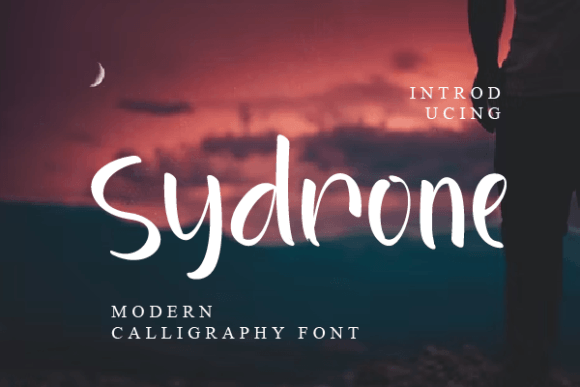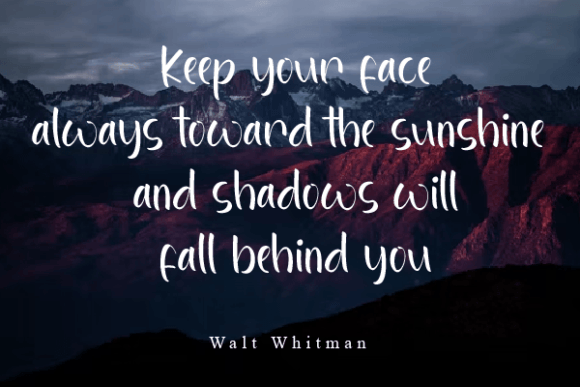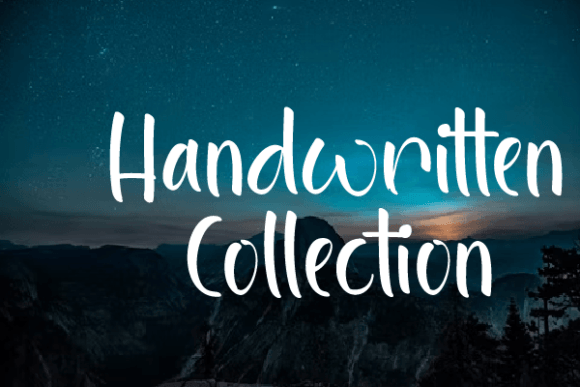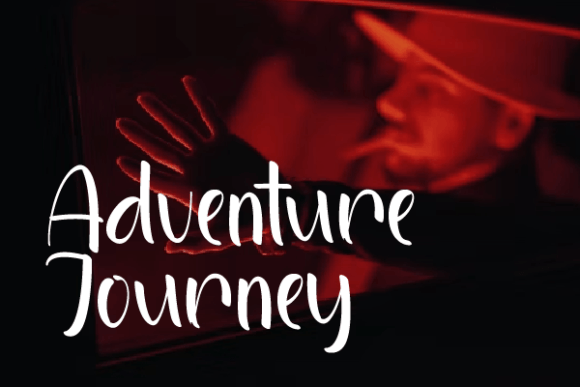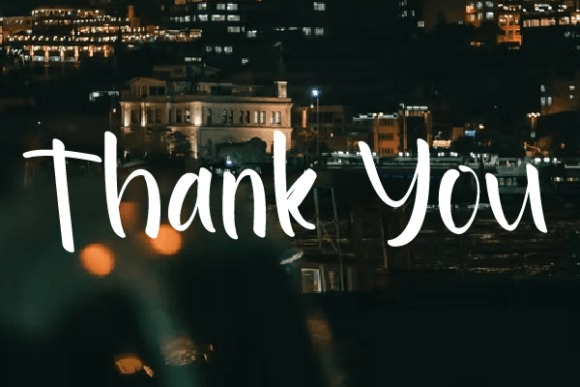
Sydrone Font
About Sydrone Font
Syndrone’s latest style letters offer a perfect blend of elegance and creativity, making them an ideal choice for a wide array of creative projects. Their unique and stylish letterforms are incredibly versatile, making them suitable for wall displays, wedding invitations, social media post logos, advertisements, product packaging, product designs, labels, photography, watermarks, invitations, stationery, and any project that benefits from a handwritten touch.
The font’s contemporary appeal and handwritten aesthetic add a personal and authentic feel to your designs, making them visually engaging and captivating. Whether you’re creating a sophisticated wedding invitation, eye-catching social media posts, or trendy product packaging, Syndrone’s latest style letters bring a touch of creativity and warmth to your projects, enhancing their overall visual impact.
With their versatility and artistic strokes, Syndrone’s latest style letters can seamlessly adapt to different design contexts, creating a cohesive and harmonious look across your materials. Their fluid and imaginative appearance makes them an excellent choice for conveying emotions and adding a unique touch to your visual communication.
Incorporating Syndrone’s latest style letters into your designs allows you to establish a memorable and artistic visual identity. Whether you’re working on branding materials, promotional items, or personal projects, the font’s handwritten taste adds a sense of personality and creativity, making your designs more relatable and appealing to your audience.
Embrace the creativity and versatility of Syndrone’s latest style letters, and witness how they elevate your projects to a new level of artistic expression. Their contemporary charm and handwritten appeal make them a valuable asset in your creative toolkit, enabling you to craft designs that leave a lasting impression on your audience, infusing your projects with creativity and a personal touch.